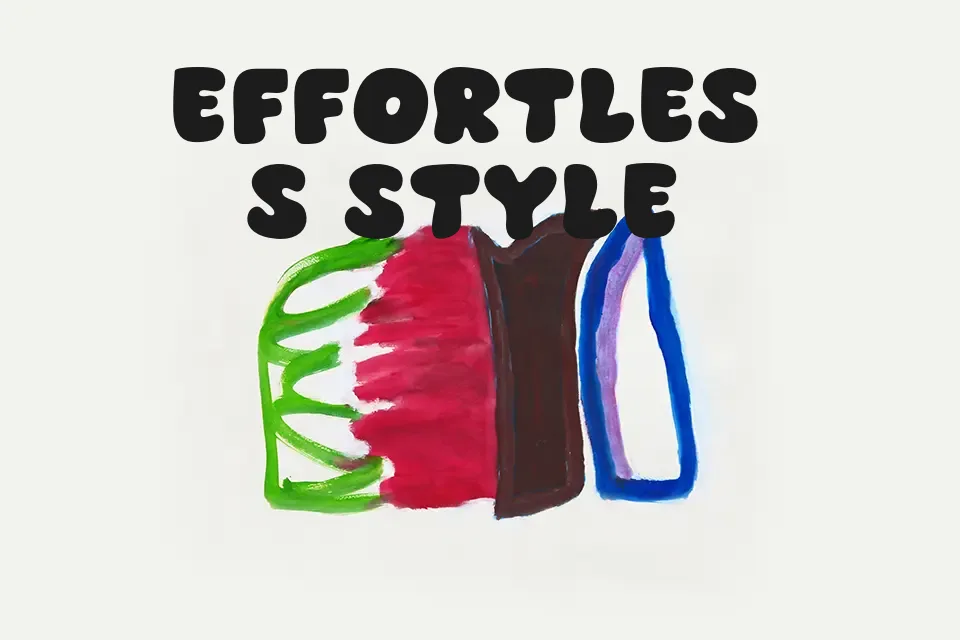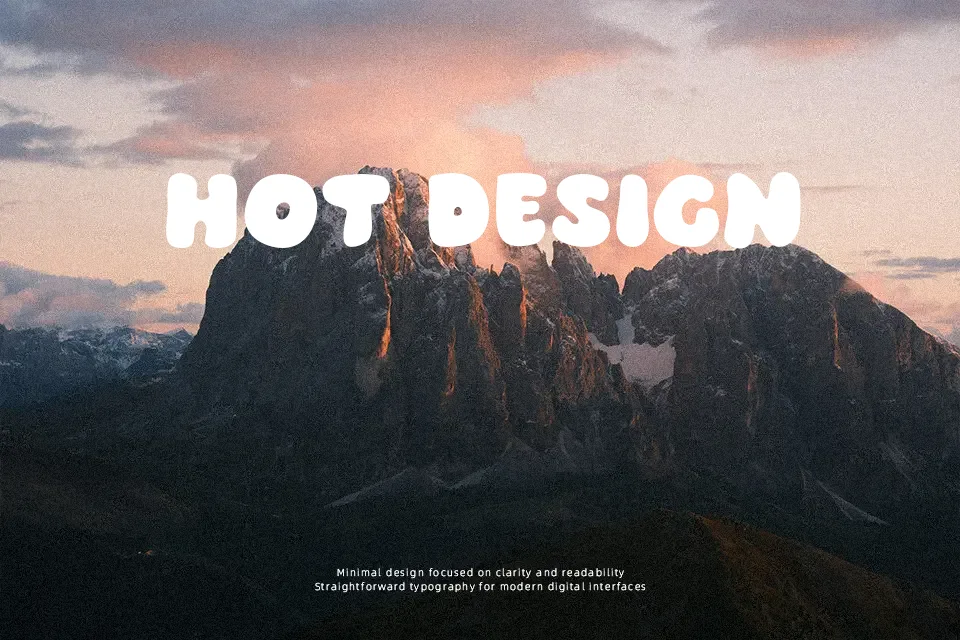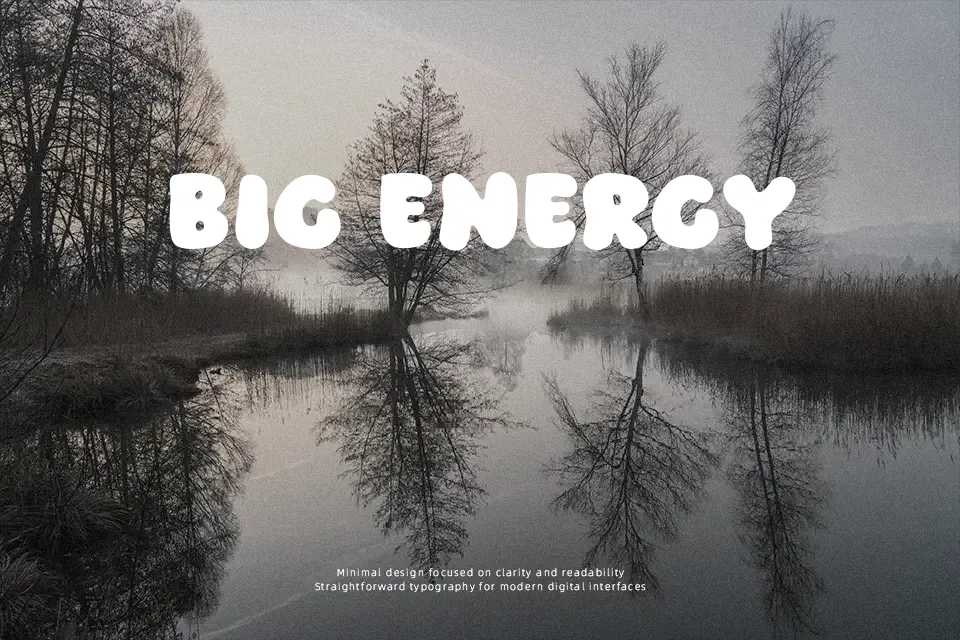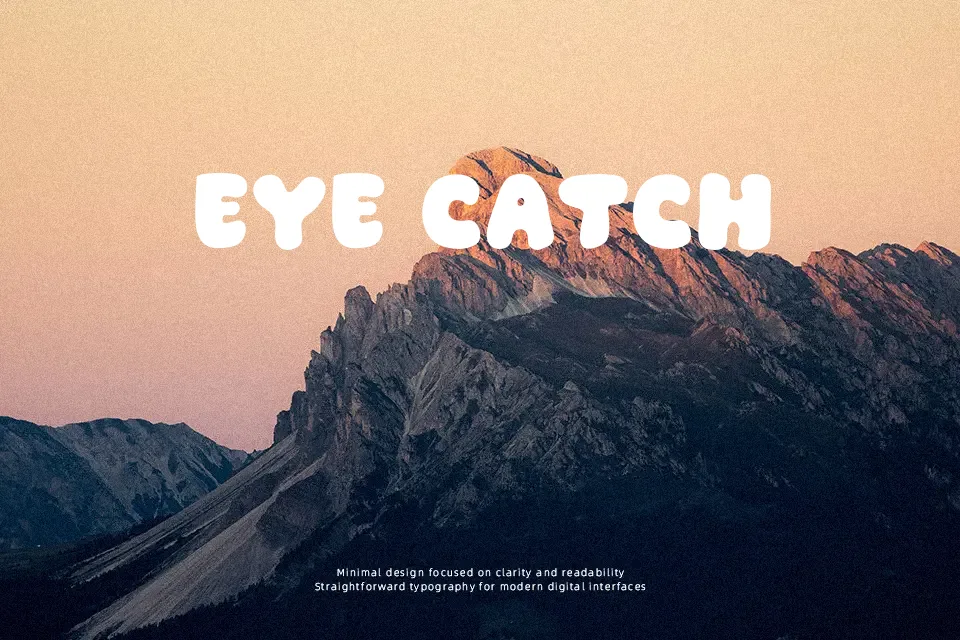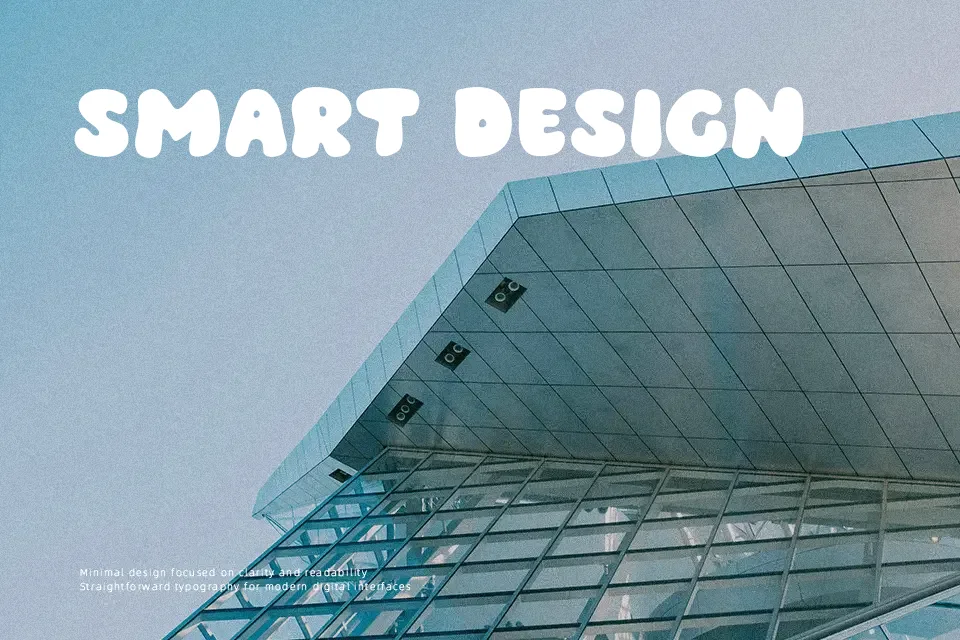
Choice Day Font
Choice Day Font showcases a whimsical cartoon aesthetic marked by plump strokes, gentle curvature, and balanced letter spacing. The rounded terminals and uniform stroke weight produce an inviting, friendly rhythm across both uppercase and lowercase characters. Moderate proportions preserve distinct character shapes in large display headings, novelty apparel, and toy branding. In practical application, the heavy weight and bouncy forms deliver strong visual presence when set against vibrant backgrounds. However, the thick strokes and condensed counters reduce legibility in continuous text blocks, making the typeface poorly suited for multi-line body copy or small technical captions.
Best For: children book covers, toy packaging, cartoon video titles, party banner headlines
Not Ideal For: long paragraph copy, mobile app body text, legal documents, dense editorial layouts
Perfect for kids, logo, and packaging, with a bold and cartoon style.